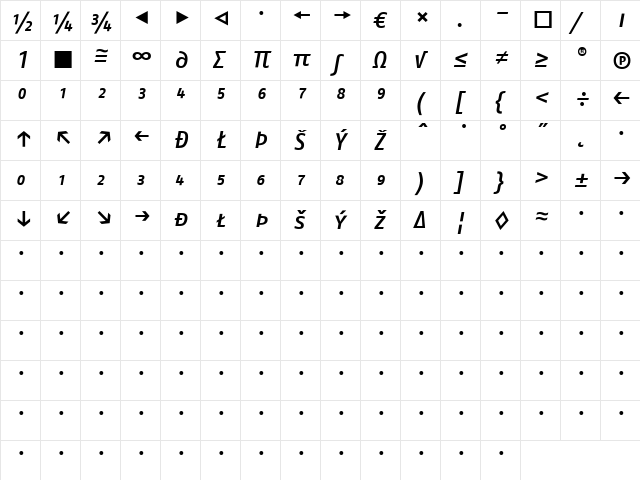
FagoNo ItalicMedium Font Preview
FagoNo ItalicMedium
Design Context for FagoNo Typeface
FagoNo is a composed and adaptable typeface that performs quietly and consistently across a wide range of design contexts. The dynamic lean of this cut emphasises speed and emphasis in any layout.
Pro Tip: Use FagoNo for emphasis, pull quotes, and subheadings where its slanted energy can add rhythm to the layout.